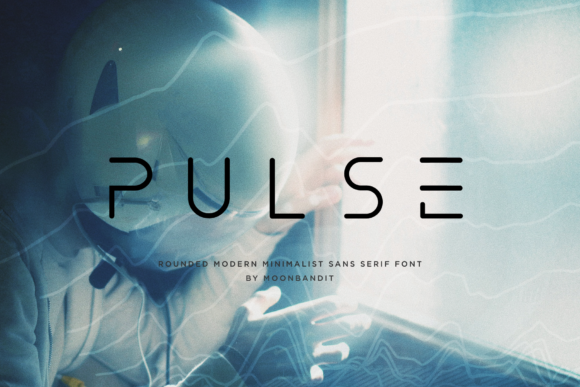
Journey into the realm of scientific precision and aesthetic beauty with Pulse Font, the ultimate sans serif typeface meticulously crafted for the discerning eye. As you delve into the world of science, Pulse Font emerges as your steadfast companion, guiding you through the intricate landscapes of research and discovery. Its clean lines and minimalist design mirror the rigor and clarity of scientific thought, allowing your words to resonate with an air of authority and elegance.
In the realm of design, Pulse Font is a versatile chameleon, effortlessly adapting to a myriad of creative endeavors. Its understated charm complements both modern and classic aesthetics, lending a touch of sophistication to logos, branding, and marketing materials. Unleash your imagination and witness how Pulse Font transforms your designs into captivating works of art, leaving an indelible mark on your audience.
For those embarking on the noble pursuit of academia, Pulse Font stands as an invaluable ally. Its crisp and legible letterforms ensure that your scientific thesis, research papers, and presentations exude clarity and professionalism. The font's inherent balance and flow guide the reader's eye effortlessly through dense passages, enhancing comprehension and engagement. Let Pulse Font be your secret weapon, amplifying the impact of your scholarly work.
Embrace Pulse Font and embark on a transformative journey of scientific exploration and creative expression. Its versatility knows no bounds, effortlessly adapting to scientific papers, brochures, websites, and social media posts. Experience the joy of seamless integration as Pulse Font blends harmoniously with your existing design elements, elevating them to new heights of sophistication. As you witness the remarkable impact of Pulse Font on your projects, you'll marvel at how such a seemingly simple font can unleash a world of possibilities.
With Pulse Font as your trusted companion, you'll find yourself reaching new heights of creativity and productivity. Its ability to effortlessly elevate your work will inspire you to push the boundaries of design and storytelling. Embrace the transformative power of Pulse Font and witness the remarkable impact it has on your projects. As you explore the infinite possibilities that await you, you'll realize that Pulse Font is more than just a font; it's an indispensable tool that empowers you to make a lasting impression on the world.